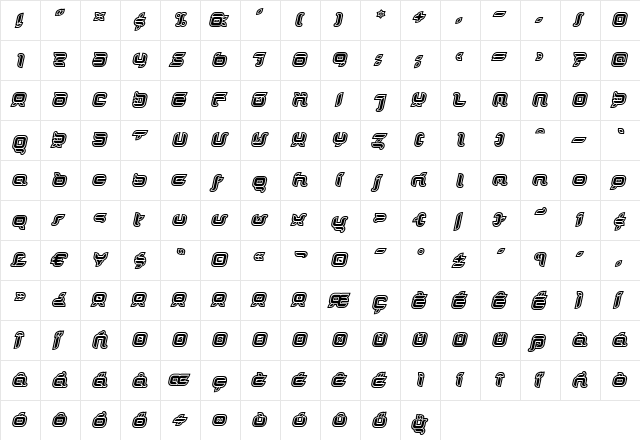
DorisOrangeOutlineItalic Medium Font Preview
DorisOrangeOutlineItalic Medium
Design Context for DorisOrangeOutlineItalic Typeface
DorisOrangeOutlineItalic brings ornamental detail and strong personality to headlines and identities, where visual impact matters more than quiet functionality. Its italic angle brings a sense of urgency and motion to the letterforms.
Font Pairing: Pair with a clean neutral sans-serif for body copy to let DorisOrangeOutlineItalic's character lead without overwhelming the composition.
Pro Tip: Treat DorisOrangeOutlineItalic as the centrepiece of your typographic hierarchy. One strong heading set in a decorative face can carry an entire layout.